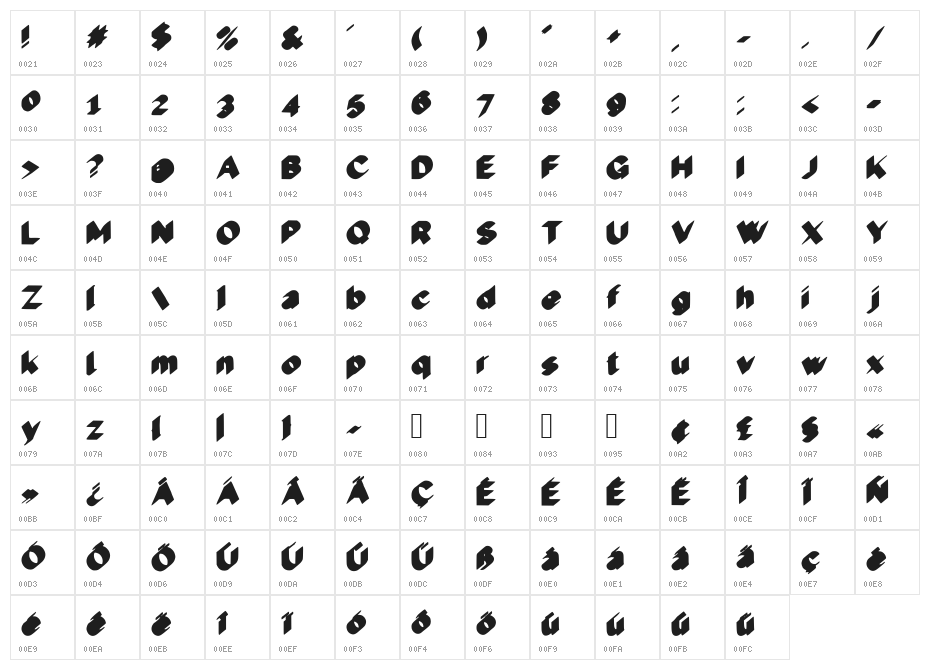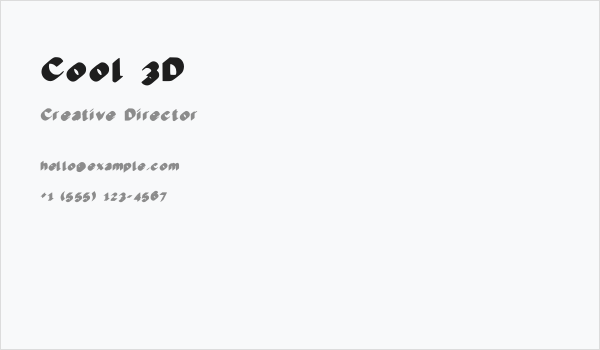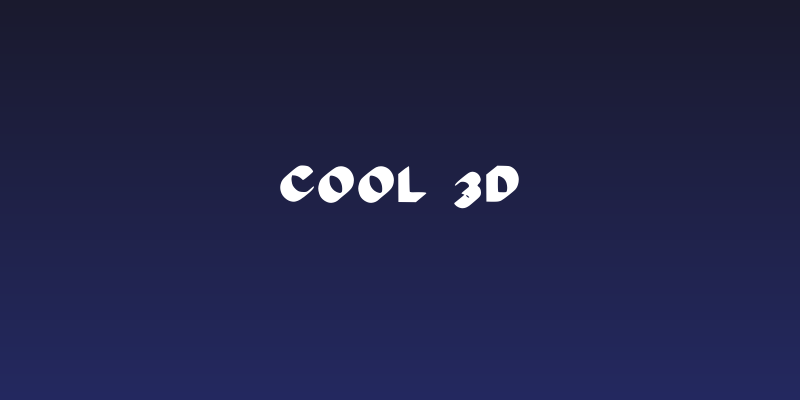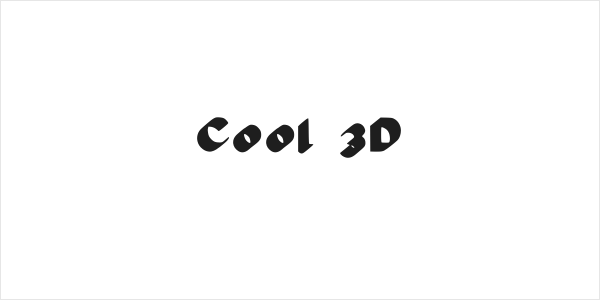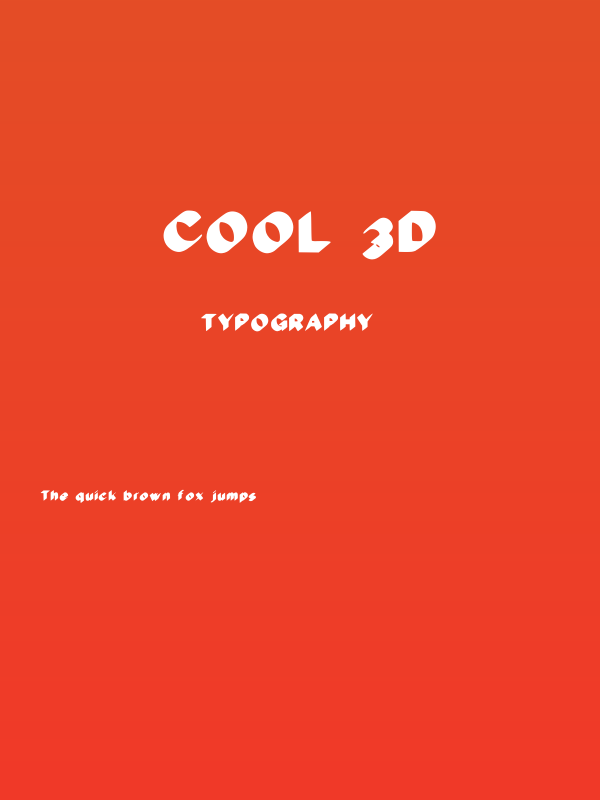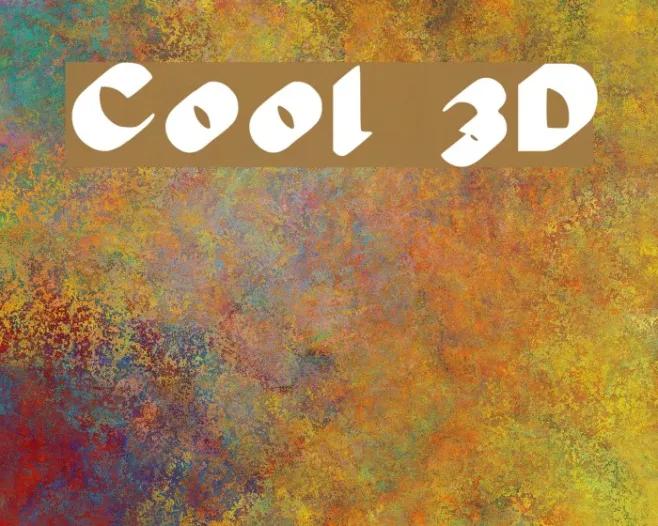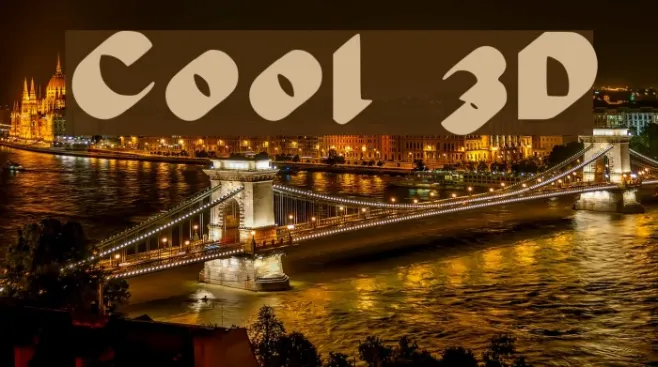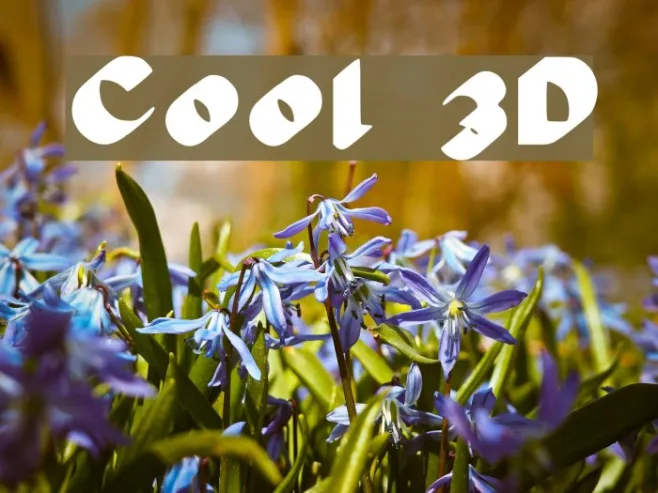
Cool 3D Font
Cool 3D Description
This font features a bold and dynamic 3D style with sharp, angular edges and a strong presence. The characters are designed with a shadow effect that gives them a sense of depth and dimension, making them stand out prominently. The uppercase and lowercase letters maintain a consistent geometric structure, while the numbers and special characters follow the same bold and impactful design. This font is ideal for projects that require a striking and modern aesthetic, capturing attention with its unique and edgy appearance.
| Proposed Projects | Ideal for posters, logos, video game titles, and any design requiring a bold, modern look. |